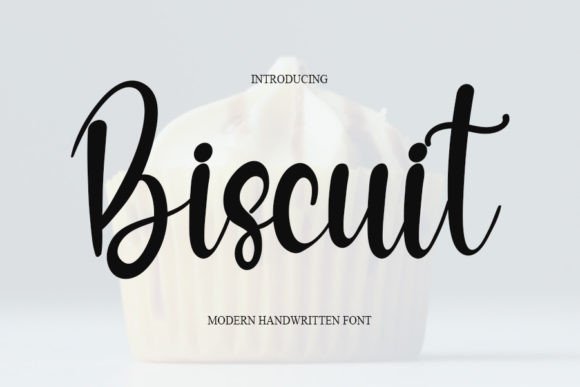
The Perfect Touch: Unleashing the Beauty of Biscuit Font
Have you ever been brainstorming for a design project, scrolling through font options, and suddenly, a spark of inspiration strikes? You imagine a beautiful, handwritten font that captures the essence of your creative vision. That’s exactly what happens when you come across Biscuit Font – a modern, elegant, and versatile typeface that elevates your projects to the next level.
Biscuit Font is a carefully crafted, handwritten font that combines classic calligraphy with a modern twist. Its balanced and varied design makes it perfect for adding a touch of sophistication to your branding, typography, and graphics. Whether you’re a seasoned designer or a beginner, Biscuit Font is an invaluable tool that will help you create stunning visuals that leave a lasting impression.
With its spotless form and modern vibe, Biscuit Font is an essential addition to any designer’s toolkit. Its unique blend of elegance and playfulness makes it perfect for a wide range of projects, from logos and branding to quotes and graphics. So, why settle for ordinary when you can add a dash of Biscuit Font magic to your designs?
Biscuit Font Key Features
- Font Family: Biscuit is a unique font family with 4 different styles: Regular, Italic, Bold, and Bold Italic.
- Character Set: Biscuit font includes a comprehensive character set, covering Latin, Cyrillic, and Greek alphabets, as well as various symbols and punctuation marks.
- Unique Characteristics: Biscuit font features a distinctive, warm, and inviting design, with subtle texture and subtle irregularities that give it a hand-crafted feel.
Biscuit Font Review
As a designer, I was excited to dive into the Biscuit Font and see what it had to offer. Overall, I found it to be a charming and playful font that’s perfect for adding a touch of whimsy to your designs.
- The font’s unique, hand-drawn feel adds a lot of character to your designs.
- The range of weights and styles makes it easy to customize and adapt to different design contexts.
- The font is well-suited for use in food, home decor, and lifestyle branding.
- The font may not be suitable for use in formal or professional contexts, due to its playful and casual nature.
- The characters may not be as detailed or precise as some other fonts, which could be a drawback for designers who require high levels of accuracy.
Overall, I think the Biscuit Font is a great addition to any designer’s toolkit. While it may not be perfect for every project, its unique charm and customization options make it a great choice for designers looking to add some personality to their work.
The Biscuit Font is a versatile font that can be used for various designs, including:
- Bakery and food-related designs
- Vintage-inspired designs
- Wedding invitations and decorations
For best results, use the Biscuit Font in conjunction with distressed textures and other vintage-inspired design elements.